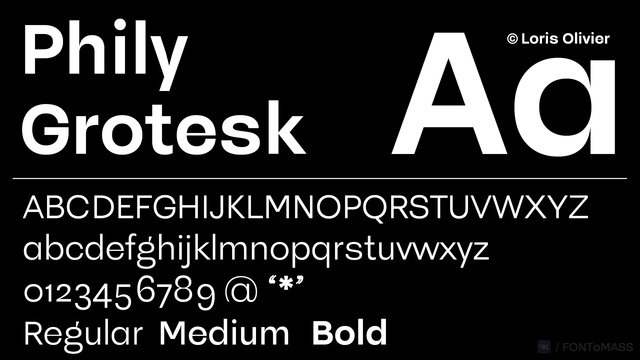
Phily Grotesk Font
Phily Grotesk Font is ideal for urban design projects, city government communications, metropolitan transportation signage, civic center branding, municipal service materials, downtown development promotions, public works presentations, neighborhood organization campaigns, brotherhood-themed initiatives, and contemporary city planning documents.
What makes Phily Grotesk Font so exciting is its authentic embodiment of American urban character and community spirit that captures the gritty determination and brotherly love of Philadelphia's historic legacy through bold typographic expression. This authentically crafted typeface features sturdy letterforms with working-class proportions and neighborhood-tested character variations that immediately convey reliability, community pride, and the unbreakable bonds of urban brotherhood. The font's blue-collar construction and civic-minded aesthetic create an instant sense of municipal authenticity and community solidarity, making it ideal for projects that need to communicate urban resilience, civic engagement, and the enduring power of community spirit to audiences seeking genuine urban experiences and meaningful neighborhood connections.
The Phily Grotesk Font family typically includes multiple community-focused weights and urban styles, often featuring light, regular, and bold variations along with neighborhood-inspired italic versions. Urban grotesque font collections frequently offer additional civic elements such as city symbols, municipal ornaments, and brotherhood decorations that enhance the authentic urban aesthetic and provide designers with comprehensive tools for creating genuinely civic-minded and community-focused communications.
The urban authenticity of Phily Grotesk Font makes it particularly effective for targeting demographics that value community engagement and civic responsibility in their personal and professional lives. Municipal marketers and community organizers will find this font especially valuable for materials that must establish immediate neighborhood credibility and connect with audiences seeking authentic urban experiences and meaningful community participation.
What distinguishes Phily Grotesk Font is its ability to convey working-class strength while maintaining the approachability necessary for effective community communication. This balanced characteristic makes it suitable for both official municipal applications and grassroots community contexts where projecting civic authority and maintaining neighborhood accessibility must coexist harmoniously.
Professional designers recognize that Phily Grotesk Font brings invaluable urban credibility to projects across industries including municipal services, community development, urban planning, and civic engagement. Its brotherhood character and community appeal make it essential for organizations whose mission centers on building stronger neighborhoods, promoting civic participation, and celebrating the authentic spirit of American urban communities.
The carefully crafted urban authenticity of Phily Grotesk Font ensures consistent civic messaging across all community-focused communication applications while honoring the fundamental importance of neighborhood pride and municipal excellence.